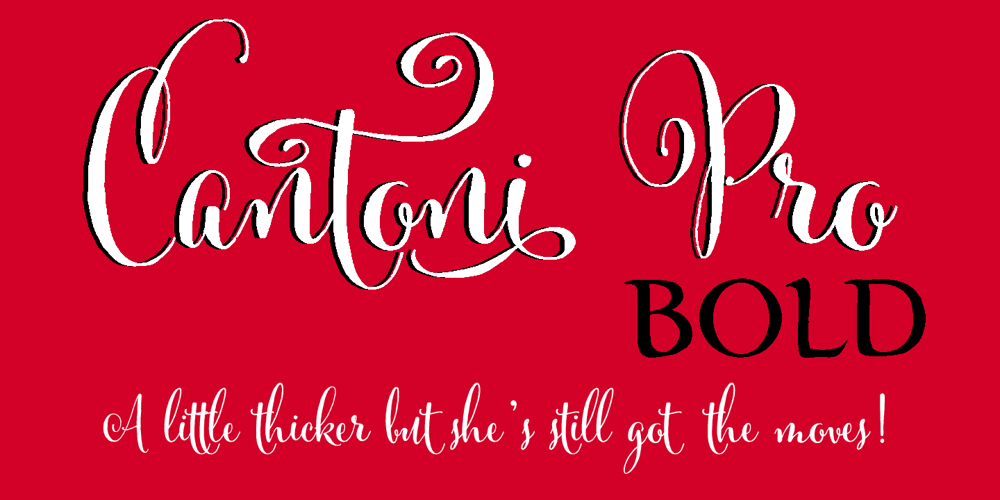
Cantoni Font Family was designed by Debi Sementelli and published by Debi Sementelli Type Foundry. Cantoni contains 7 styles and family package options. I have a new baby sister! Check her out in her crib: Cinque Donne The Cantoni Font family is a hand lettered font with a variety of standard and alternate characters that play together well. And with a total of 1265 glyphs, you can play for as long as you like. Now Cantoni and Cantoni Pro also come in BOLD! Additional features include: Roman numerals, Fractions, Ordinals, Ornate and Old Style numbers, Greek symbols, a set of Flourishes, Ornaments and DIY Wedding Words and Images. It also includes Western and Central European, Romanian and Turkish language support. Named after my large Italian family, the unique variety of letters based on my own fluid upright style of brush lettering, reminds me of every family I know. There are creative and conservative siblings, crazy in a good way cousins, affable aunts and corny joke telling uncles who somehow come together and form one cohesive unit. In the same way, using the Open Type features to insert a “wild t”, begin a name with a “flashy f” or end a word with a “rambling r”, the font comes to life. The party starts. The fun begins. And soon they’re all laughing and dancing up and down the baseline. Like a family gathering to celebrate a special occasion, there is a palpable sense of joy expressed through the letters and images, not unlike the sharing of good food, memorable stories and lots of laughter. While Cantoni Basic gets the party started, the Cantoni Font Family Total Design offers a complete package of options for your unique creations. On behalf of the whole Cantoni family, thanks for joining in the fun. I’ll see you on the dance floor. Enjoy! Debi Check out my other script fonts Belluccia and Dom Loves Mary offered through the Correspondence Ink Foundry here at MyFonts!